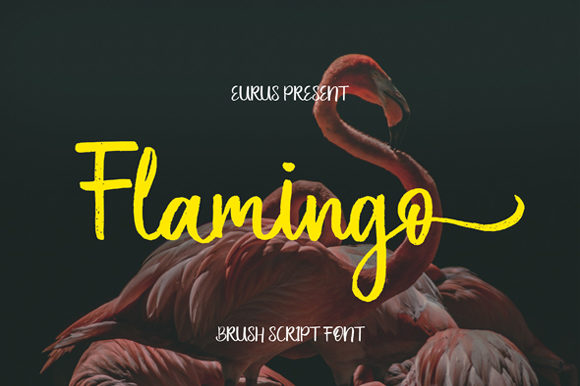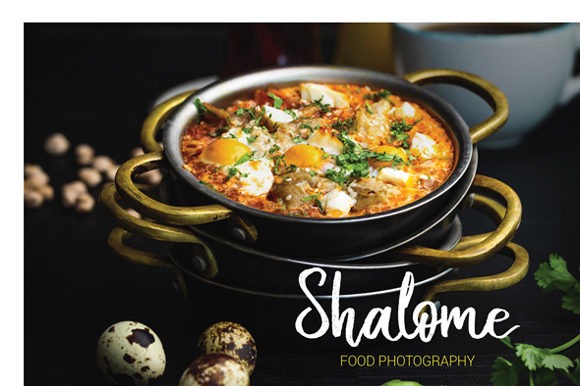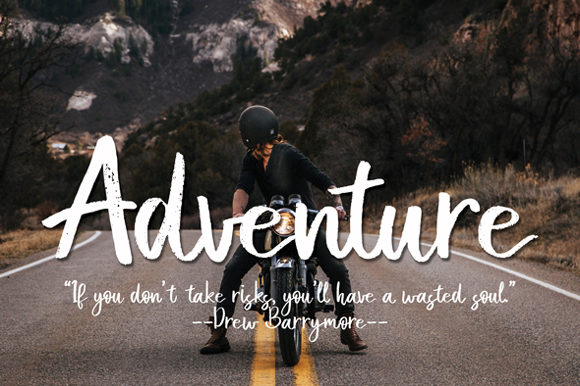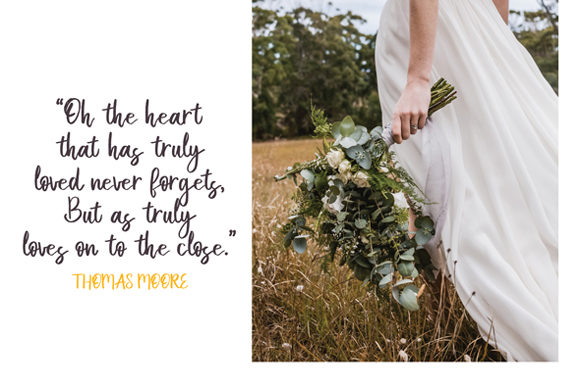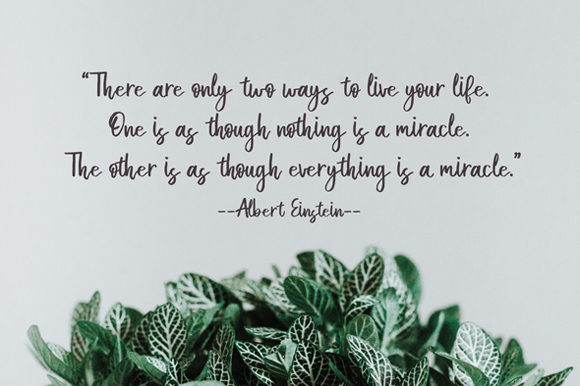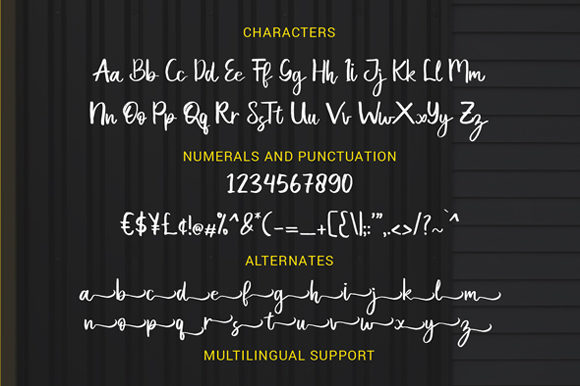
Flamingo Font
About Flamingo Font
Flamingo is a cute and casual handwritten font with an incredibly friendly feel. It features gorgeous swashes and ligatures that make this script incredibly versatile. Whether you’re looking for fonts for Instagram or calligraphy scripts for DIY projects, Flamingo Brush will turn any creative idea into a true piece of art!